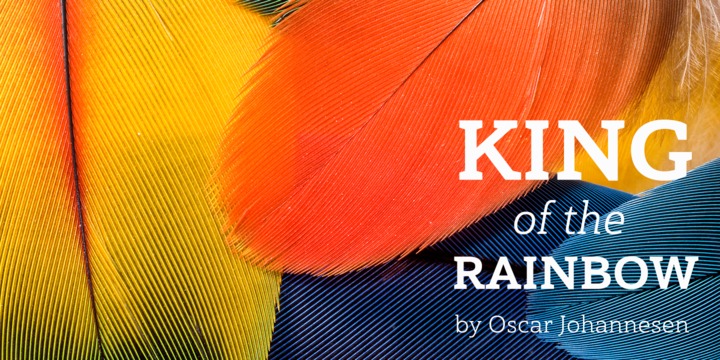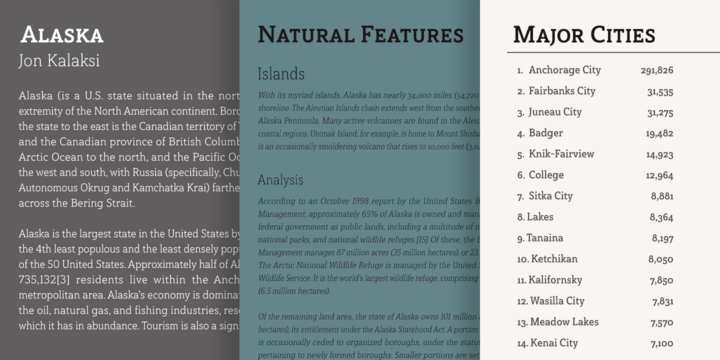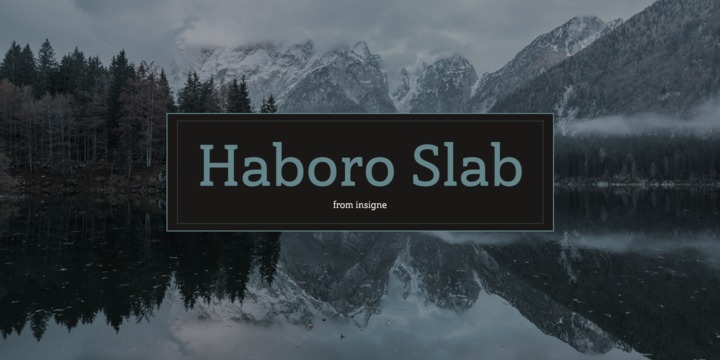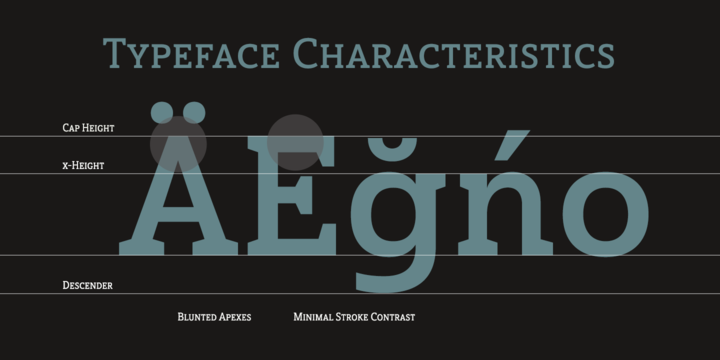
Haboro Slab Font Family
Haboro Slab. It’s a nose-to-the-grindstone kind of font like the first of its family. This slab serif pushes through the clutter powerfully in editorial and corporate work such as business websites and software.